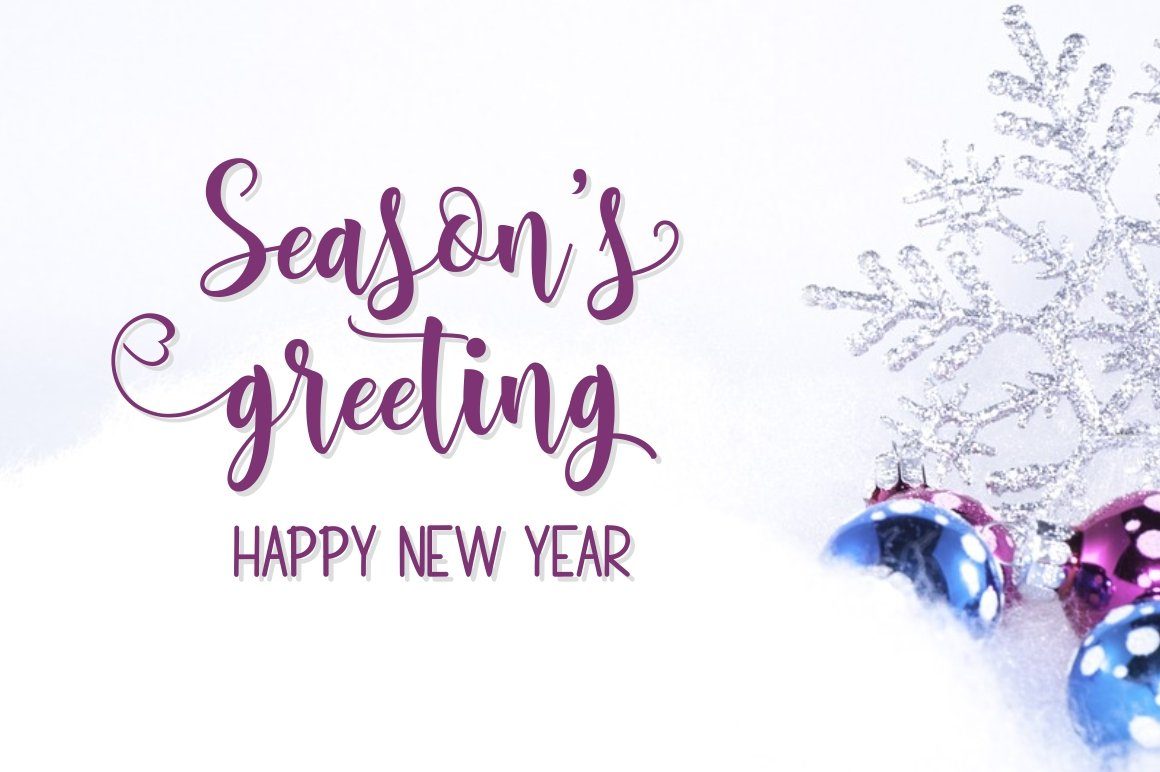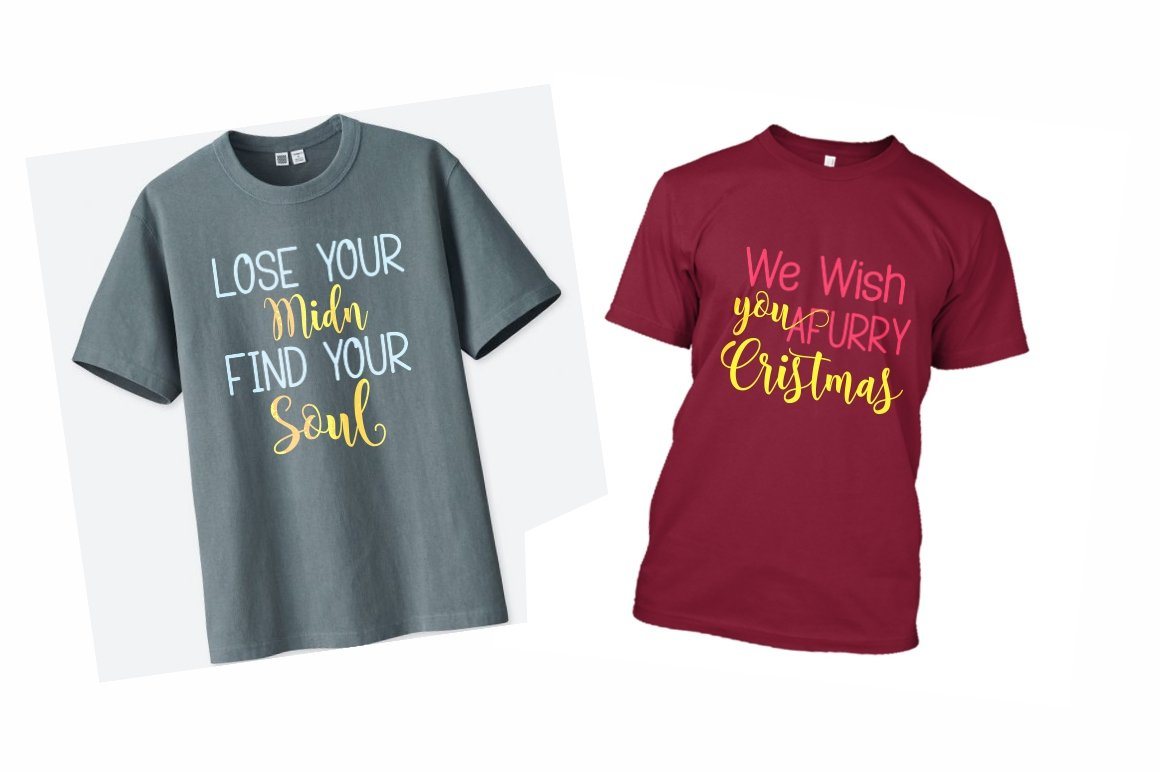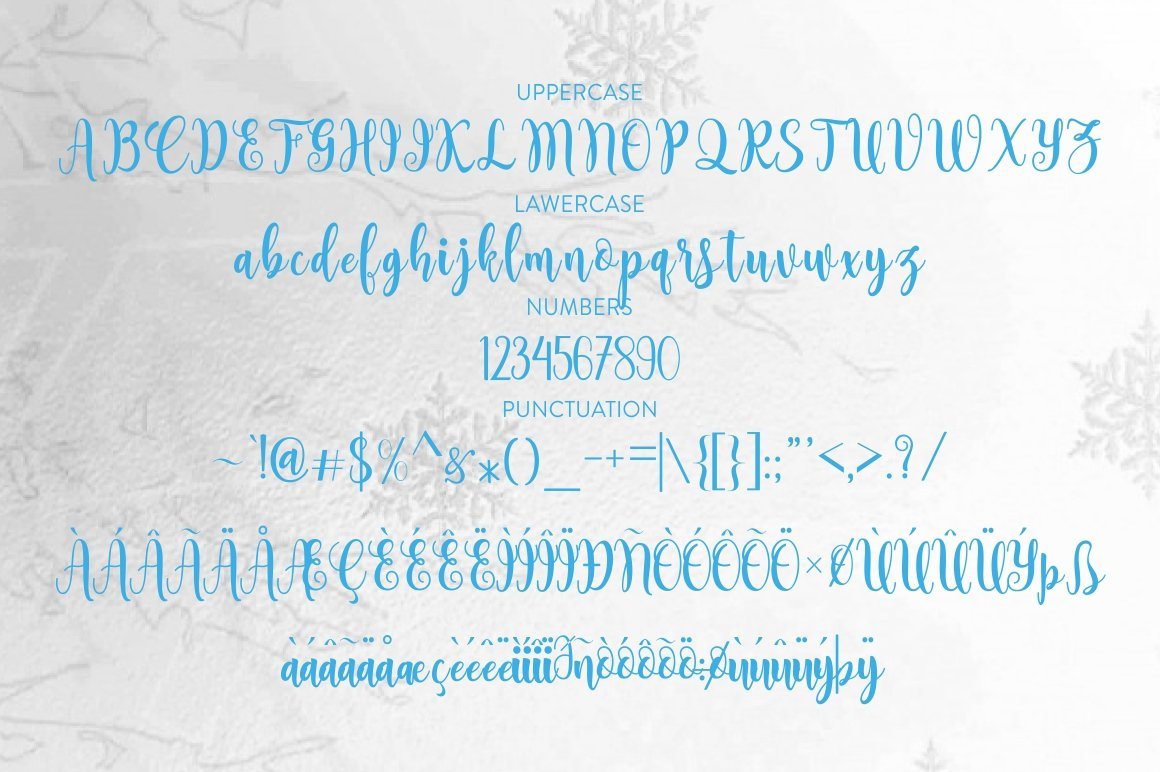
About Sambilan
Proud to introduce ‘Sambilan’ Fonts that are made in such a way as to produce two fonts namely Shaking Script and Shaking Display, both of which are very beautiful when combined in a design similar to hand tapping so that being a fun design is certainly very interesting. It is suitable to be applied to desain such as birthday greeting cards, invitation cards, display posters, T-shirts, titles, magazine covers, books, and so on. Sabilan Scripts Included: – Uppercase Alphabet – Lowercase – Numbers & Punctuation – International characters and with additional beautiful alternatives (you can find in image preview) Sambilan Display – Uppercase Alphabet – Lowercase – Numbers & Punctuation – International characters The font features are: – Ligatures – Standard Ligatures – Discretionary – Stilistic Alternate – Stylistic Set -PUA Unicode (Personal Use Area) You will get: – Sambilan Script and Sambilan Display. OTF – Sambilan Script and Sambilan Display. TTF – Sambilan the Script and Sambilan Display. EOT – Sambilan the Script and Sambilan Display. SVG – Sambilan Script and Sambilan Display. WOFF Supported Languages: Breton, Catalan, Czech, Danish, Estonian, French, German, Hungarian, Latvian, Lithuanian, Norwegian, Spanish, Swedish, Turkish, Welsh. Basically, all European languages ​​are based on the Latin alphabet To use beautiful swash, you need a program that supports OpenType features such as Adobe Illustrator CS, Adobe Photoshop CC, Adobe Indesign, and Corel Draw. Programs that support this font are Adobe Photo Shop, Adobe Illustrator, Adobe Indesign, Corel Draw and Microsoft Office. Languages ​​supported: Breton, Catalan, Czech, Danish, Estonian, French, German, Hungarian, Icelandic, Italian, Romanian, Scottish Gaelic, Slovak, Latvian, Lithuanian, Norwegian, English, Finnish, Polish, Portuguese, Slovenian, Spanish, Swedish , Turkey, Welsh. Basically, all European languages ​​based on the Latin alphabet can be used for various purposes. Such as titles, logos, wedding invitations, t-shirts, letterhead, signs, labels, news, posters, badges, etc. To enable OpenType Stylistic alternates, you need a program that supports the OpenType feature such as Adobe Illustrator CS, Adobe Indesign & CorelDraw X6-X7. Basically, all European languages ​​based on the Latin alphabet can be used for various purposes. Such as titles, logos, wedding invitations, t-shirts, letterhead, signs, labels, news, posters, badges, etc. To enable OpenType Stylistic alternates, you need a program that supports the OpenType feature such as Adobe Illustrator CS, Adobe Indesign & CorelDraw X6-X7. thank you